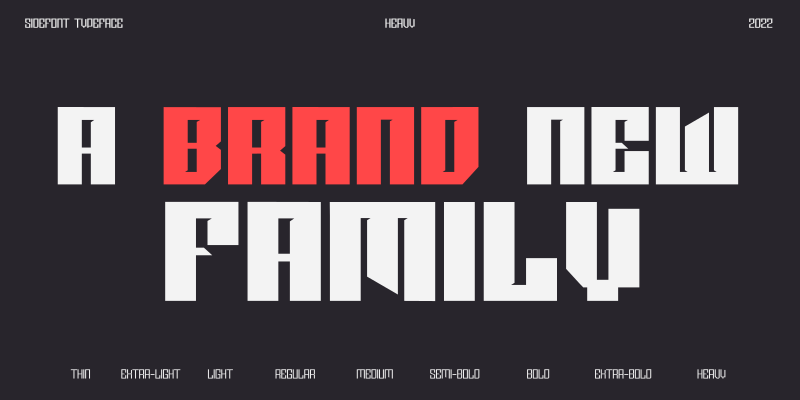
Preview and download Sidefont Font. Created by Glen Nyundu in Techno Square styles with Demo license.
For testing purposes only. Full set and commercial licenses available at https://www.myfonts.com/collections/sidefont-font-rainbomb-studio Sidefont is a sharp, square family of 9 fonts inspired by the Sidemen Logo: The font broadens its use by supplying weights all the way from thin to black. Perfect for posters, headlines and logotypes. OpenType features give you access to: Alternatives Kerning Fractions Numerals & Punctuation Accented characters Multilingual Support Supports most Latin-based languages and few others. |